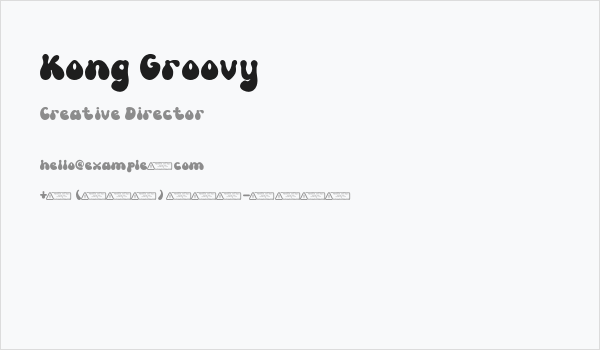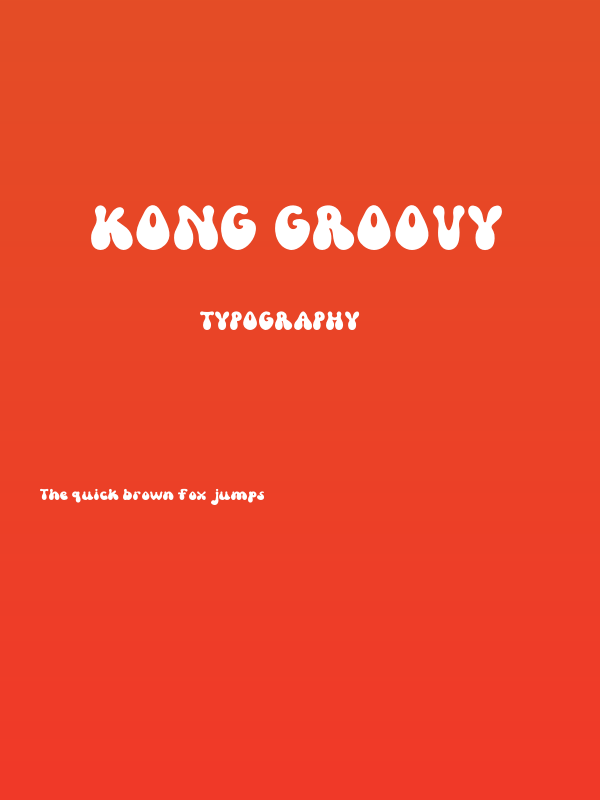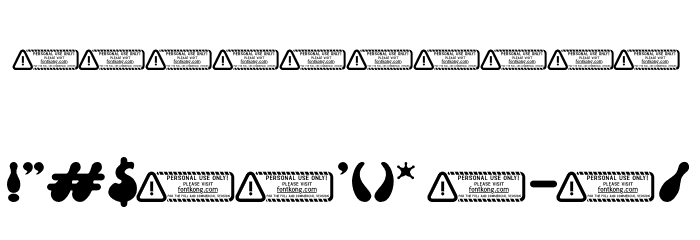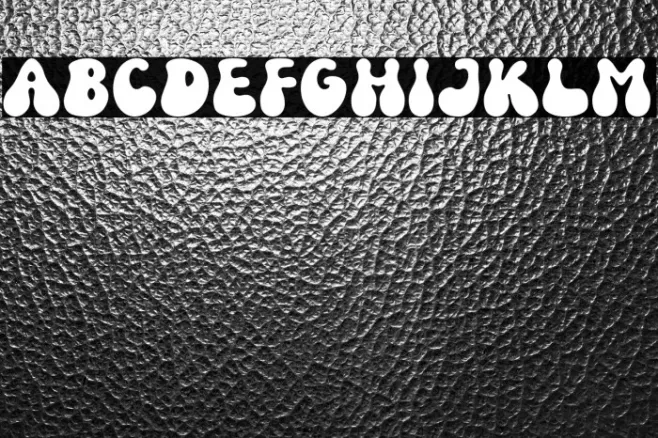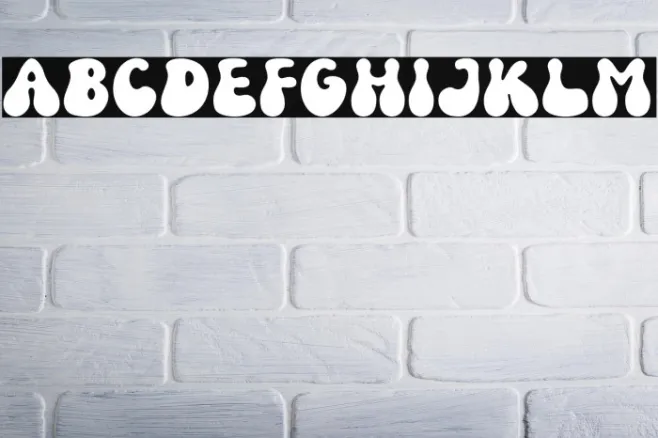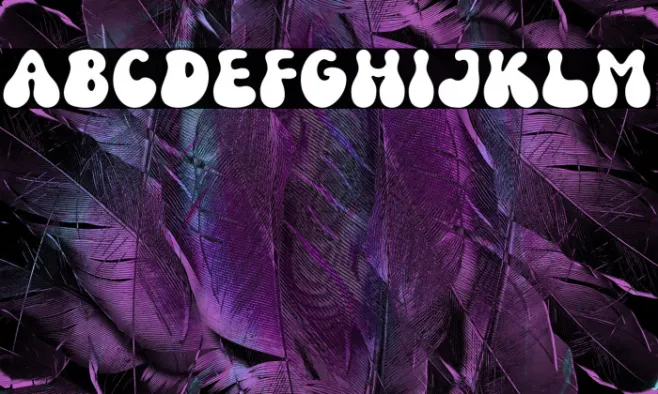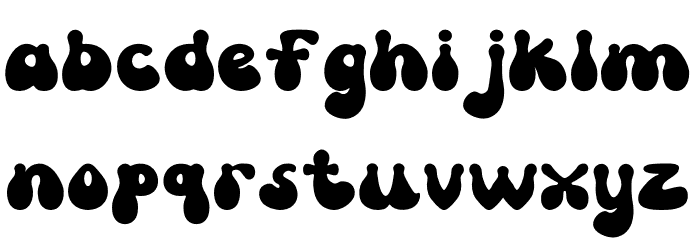
Kong Groovy Font
Kong Groovy Description
This font features a bold, playful style with rounded, bulbous letterforms that evoke a sense of fun and whimsy. The characters are thick and have a smooth, flowing appearance, reminiscent of retro or psychedelic designs. The uppercase and lowercase letters maintain a consistent style, with exaggerated curves and a slightly irregular shape that adds to its charm. The numbers and special characters follow the same design principles, ensuring a cohesive look across all elements. This font is ideal for projects that require a lively and eye-catching aesthetic.
| Overall Style | Retro, Playful |
| Proposed Projects | Ideal for posters, album covers, children's books, and any design needing a fun, retro touch. |